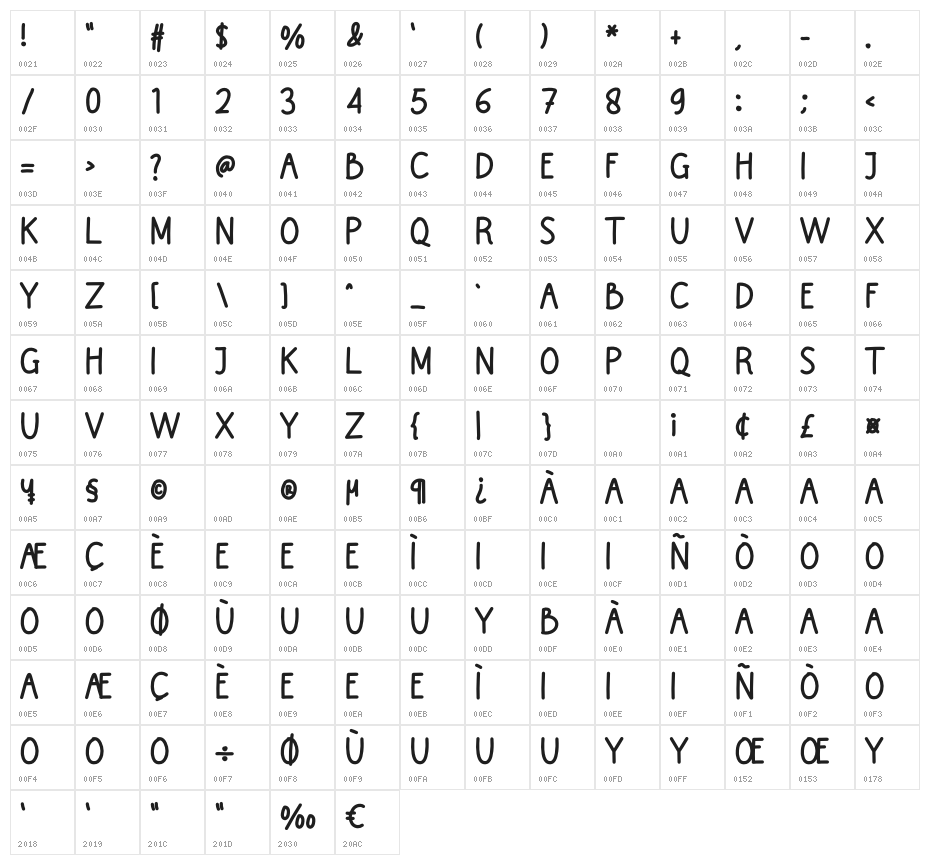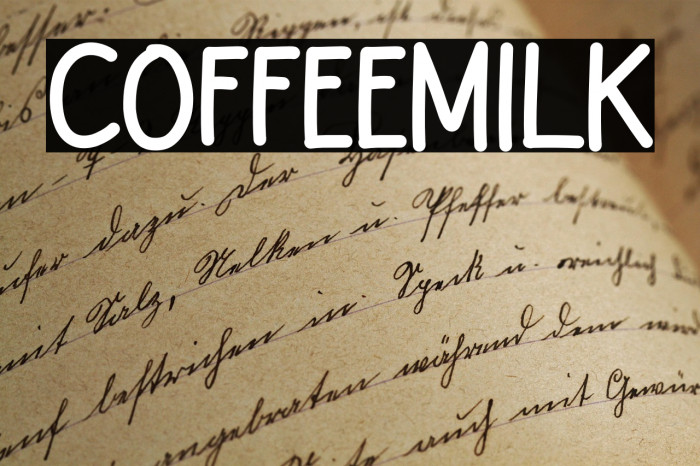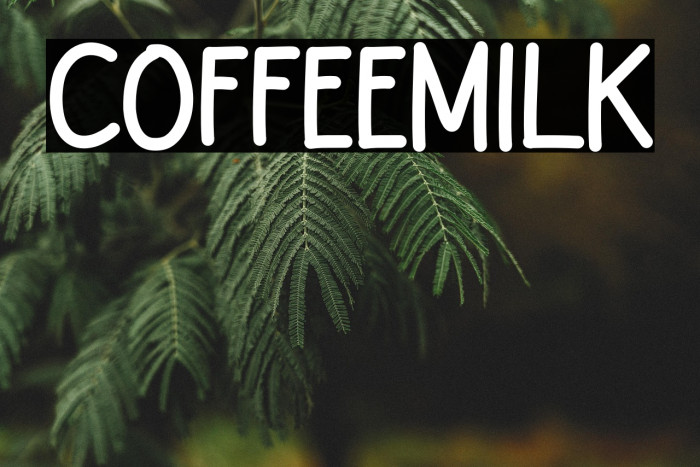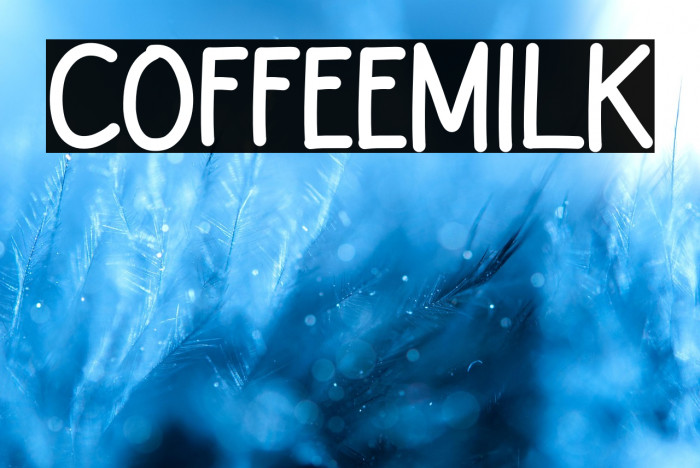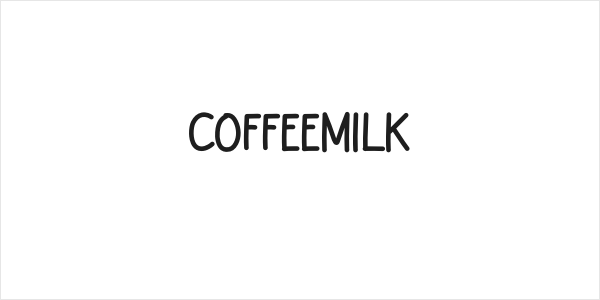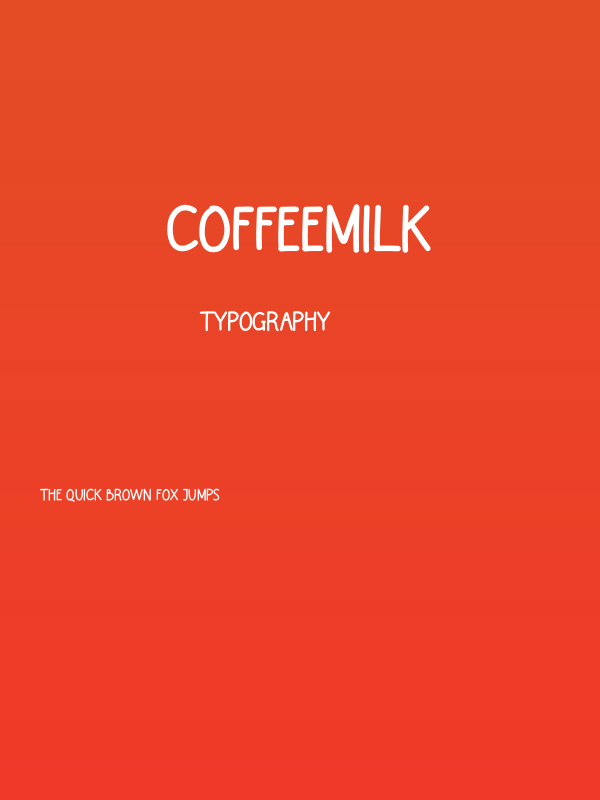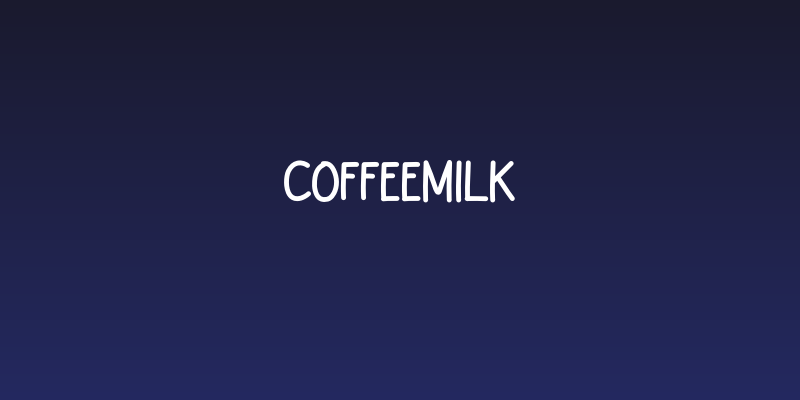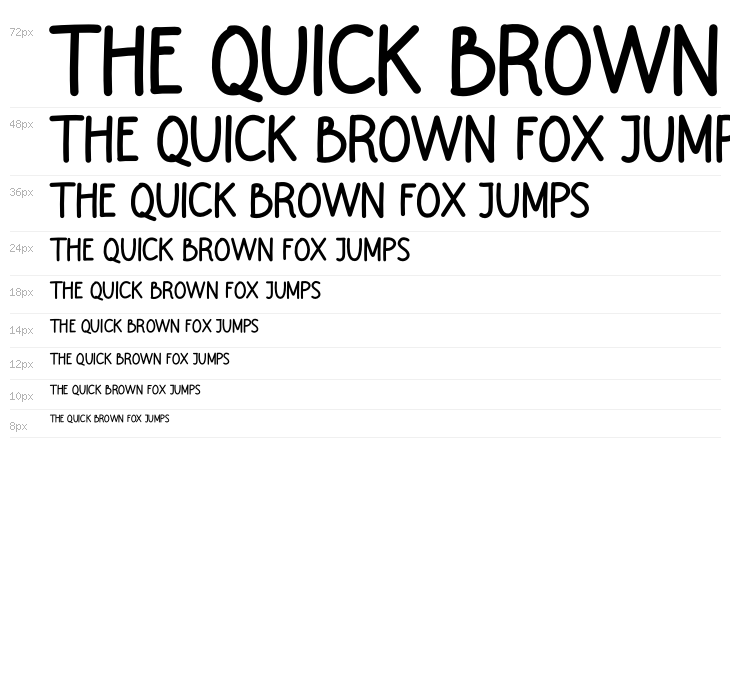
Coffeemilk Font
Coffeemilk Description
This font exudes a playful and casual vibe with its handwritten style, featuring rounded edges and a slightly uneven baseline that adds to its charm. The characters are bold and have a consistent thickness, making them highly legible. The font includes a full set of uppercase and lowercase letters, numbers, and a variety of special characters, ensuring versatility in usage. Its informal and friendly appearance makes it suitable for projects that require a personal touch. The spacing between characters is normal, allowing for easy readability without feeling cramped.
| Use Case | Headlines, Informal text, Branding |
| Proposed Projects | Ideal for greeting cards, children's books, casual branding, and social media graphics. |